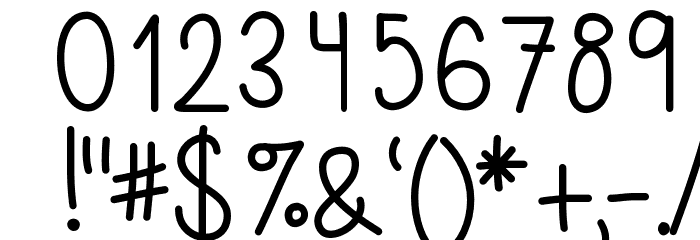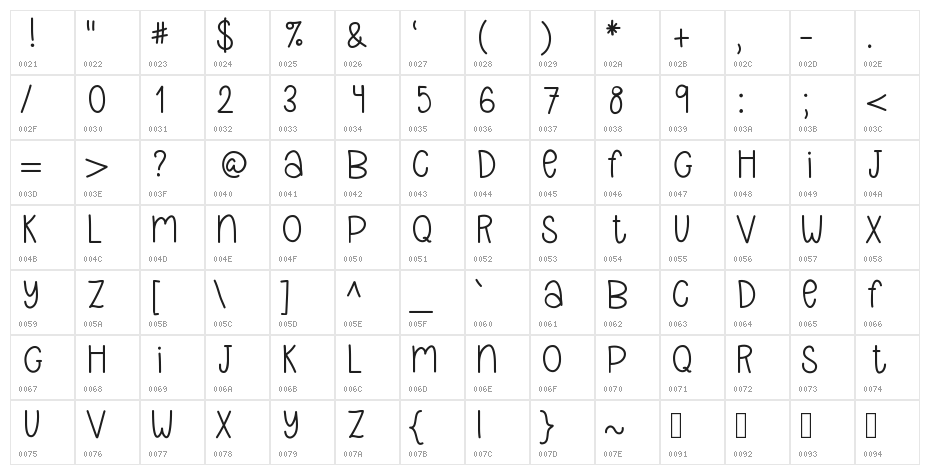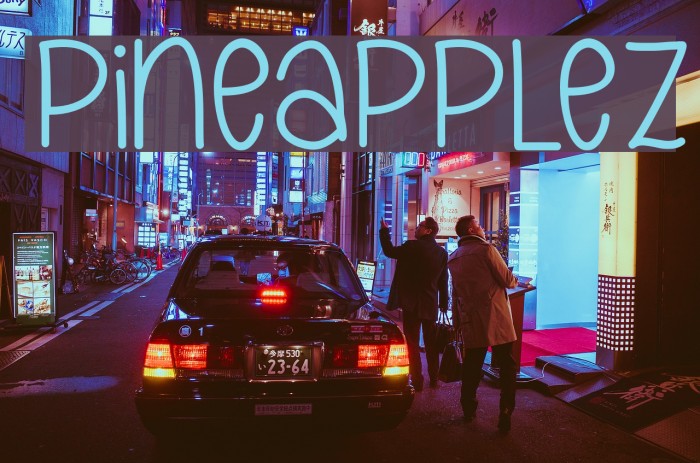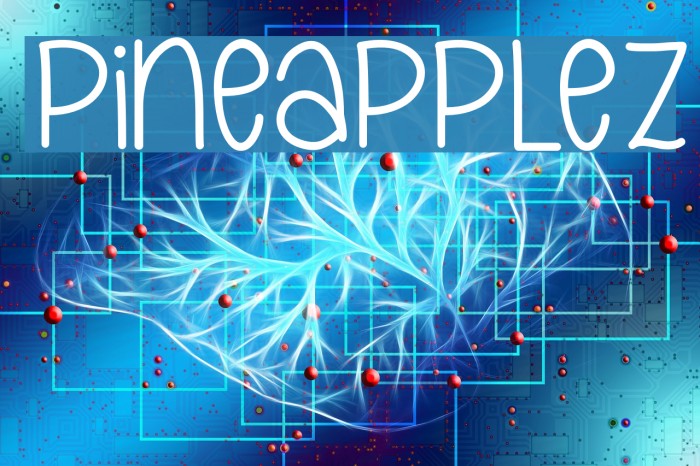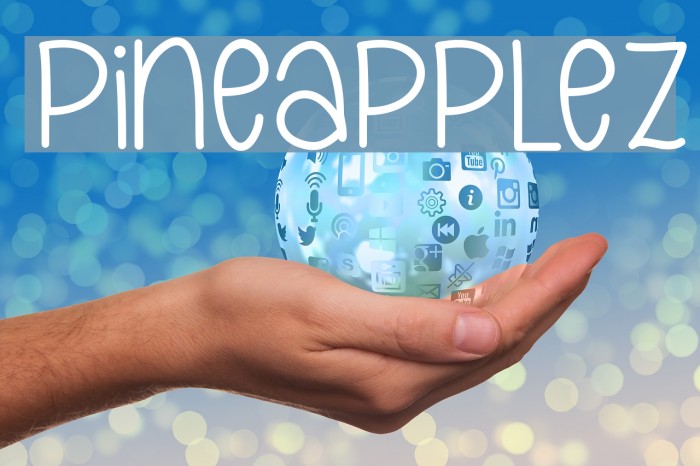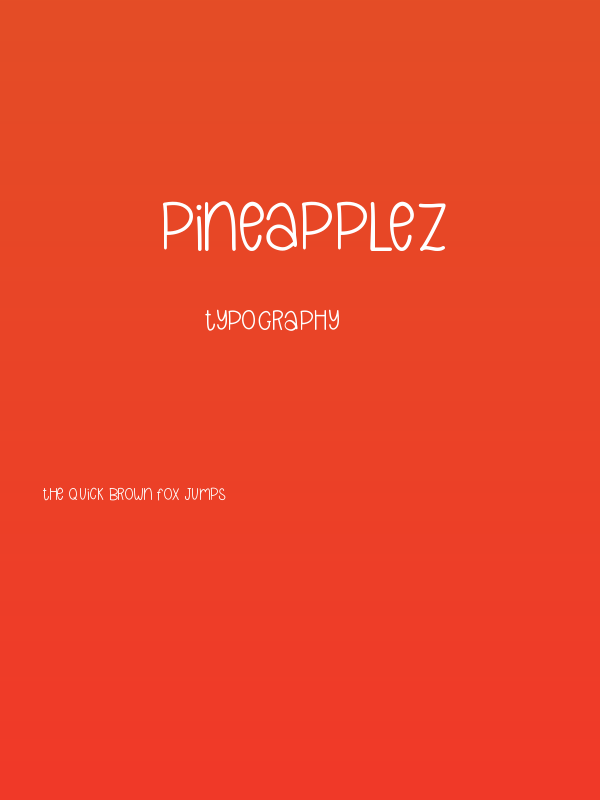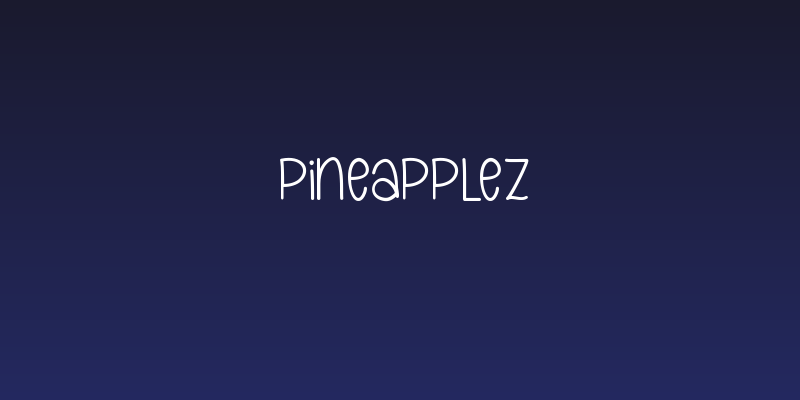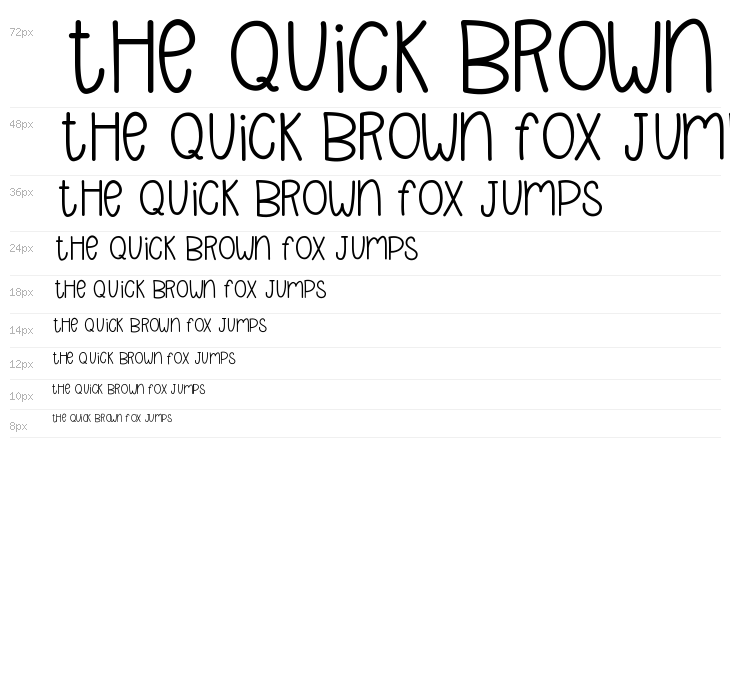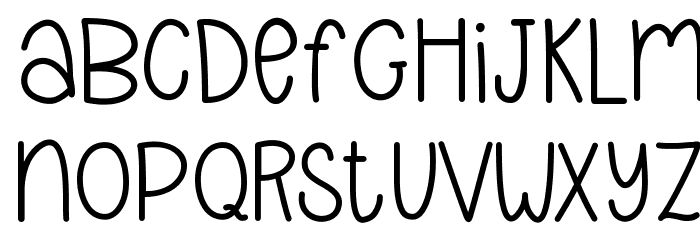
Pineapplez Font
Pineapplez Description
This playful and whimsical font features a handwritten style with rounded edges and a casual, friendly appearance. The characters are slightly irregular, adding to the charm and informal feel. The uppercase and lowercase letters maintain a consistent style, with a slight tilt that enhances the handwritten effect. The numbers and special characters are equally playful, making this font suitable for creative and fun projects. Its simplicity and readability make it versatile for various design needs.
| Proposed Projects | Ideal for children's books, greeting cards, playful branding, and social media graphics. |